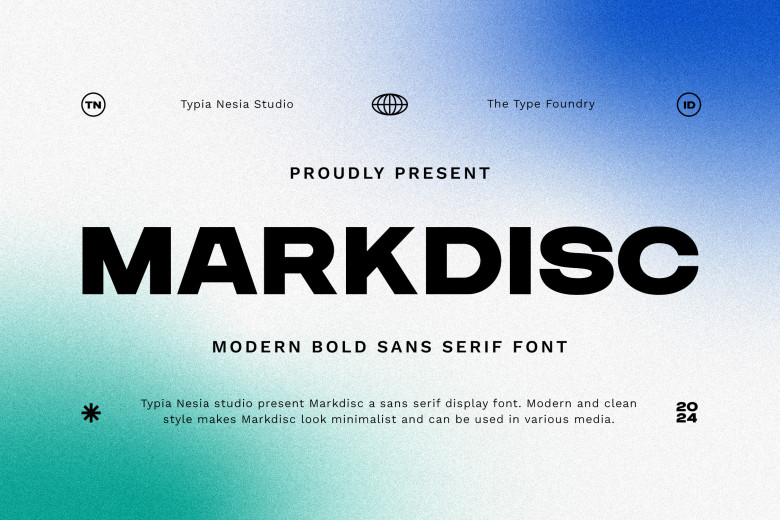
Markdisc Font
Markdisc is a Modern Bold Sans Serif font that stands out with its confident style. Its clean lines and sharp strokes convey professionalism and sophistication perfectly, making this font ideal for branding/logo design, packaging design for product web design projects print/digital advertising campaigns Social media graphics or social media images.
Markdisc specializes in corporate presentations, headline and layout creation for magazines, poster and event signs menu design branding merchandise creation and app interface development. Their modern yet bold designs lend strong visual impact across numerous applications.
Its flexible characters and ligatures allow it to expand its versatility and character variety, offering support for punctuation marks in lowercase letters as well as numerals – giving you plenty of opportunities for creating striking visual designs!
Multilingual support ensures access across languages and regions, with Metashift employing advanced typographic methods to meet the demands of today’s innovative projects. By understanding fundamental design principles as well as modern aesthetics, Metashift demonstrates its grasp of both.
Markdisc Sans Serif Font